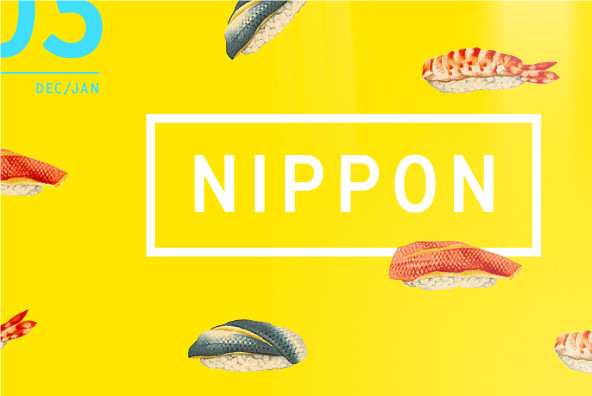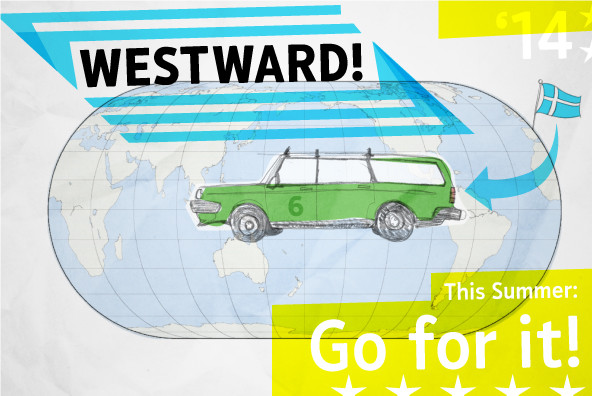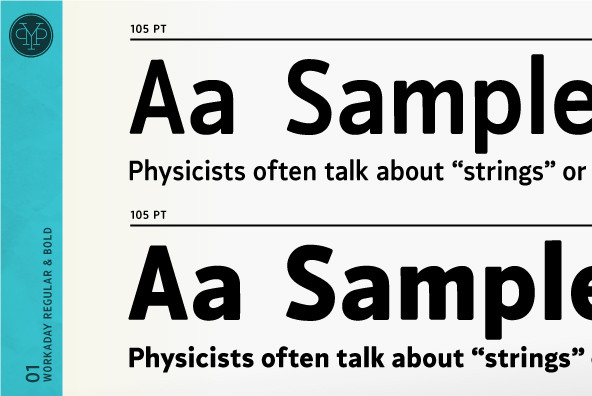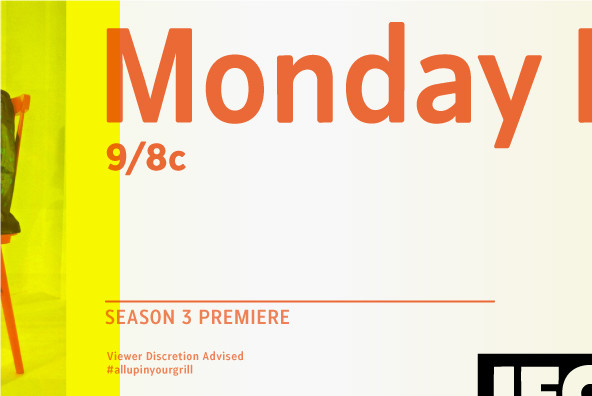
Workaday Font
Workaday from Yes Please is a bold and clean contemporary take on the classic American Sans Serif. Inspired by the wildly varied history of early to mid 20th century American signage, aircraft markings and industrial shipping vernaculars, Workaday exudes a timeless, classic flavor packed with a personality perfect for graphic headlines, packaging, copy setting and much more! Workaday features conventional ligatures, a standard set of accents and symbols, and a set of open type alternate characters to provide a versatile end-user experience. Workaday has seen action for Nike Sportswear, MSN, IFC, FX and more. Workaday is designed by Lee Schulz.